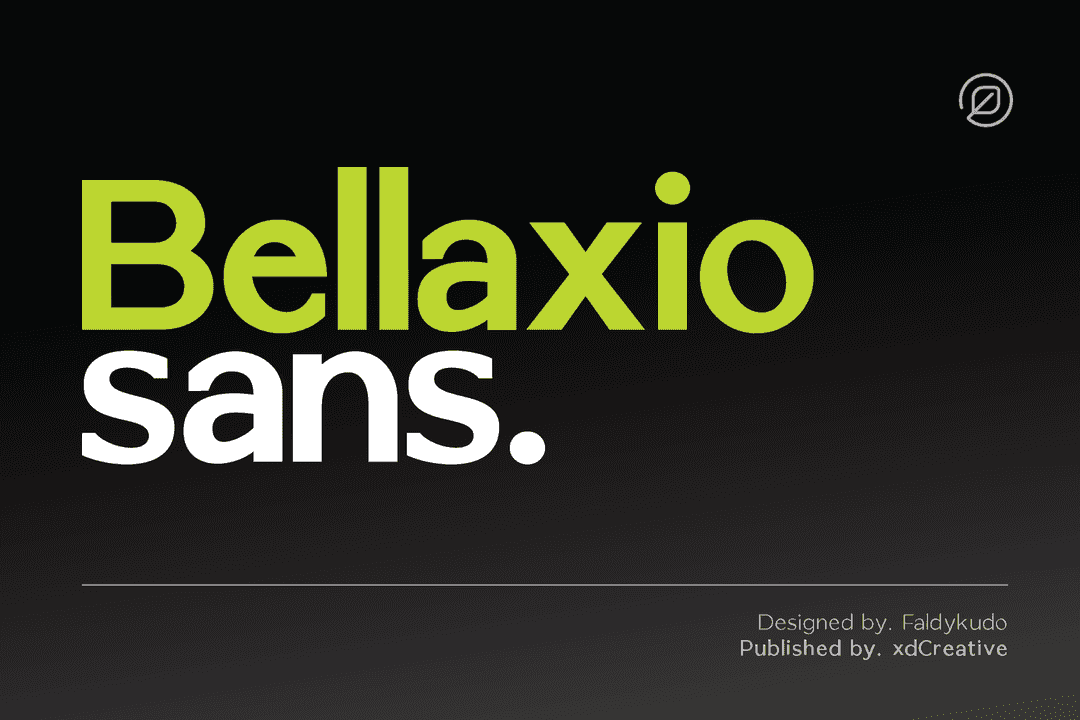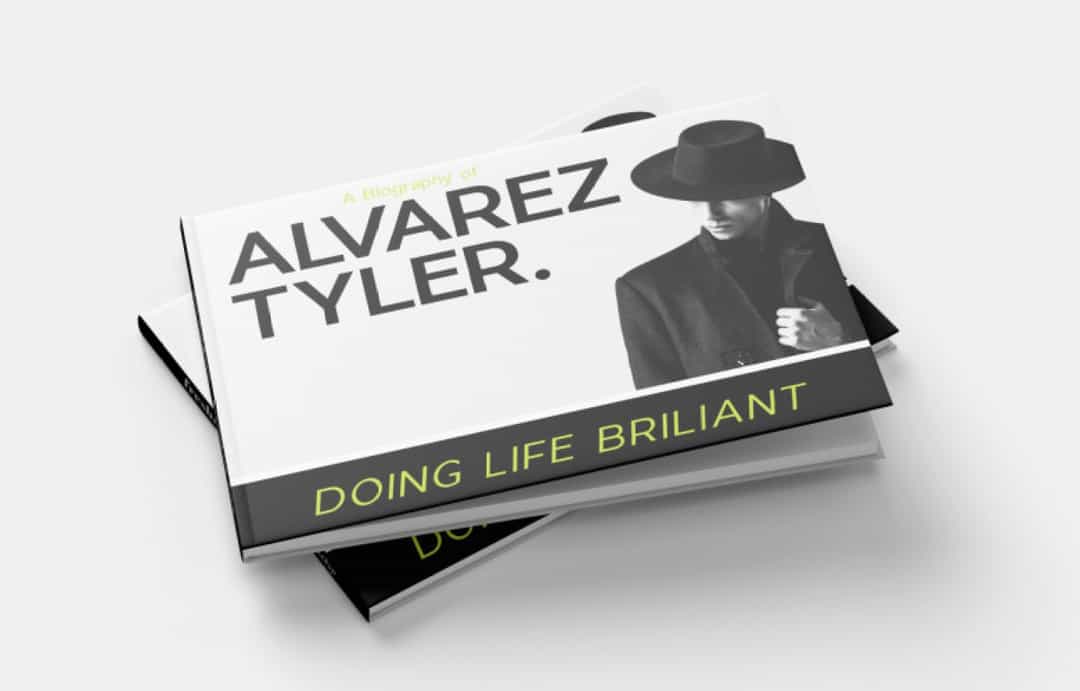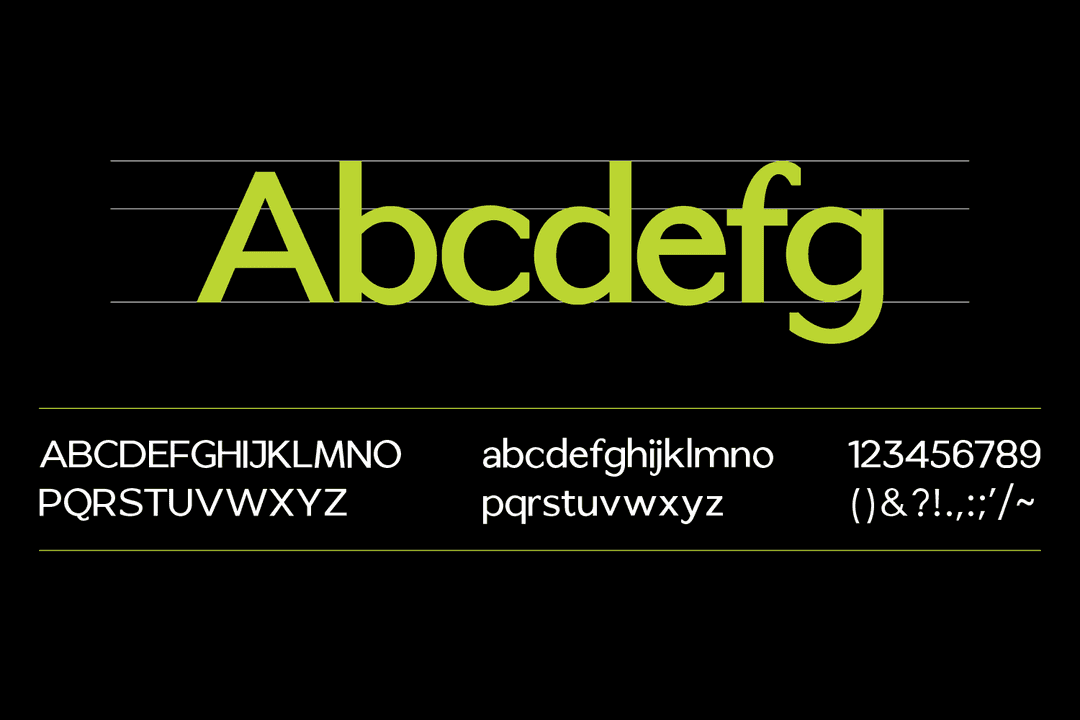
Bellaxio Sans is a timeless yet minimalist sans serif font that will enhance any project, so why not incorporate it into your creative efforts and experience how it stands out!?